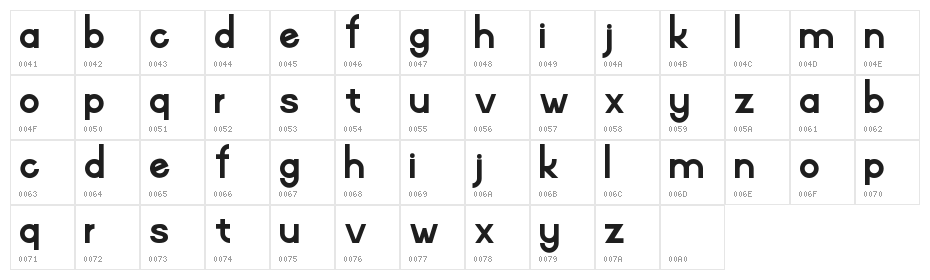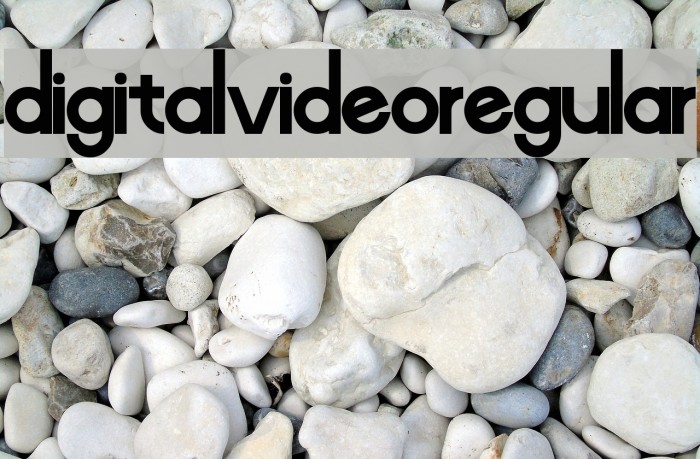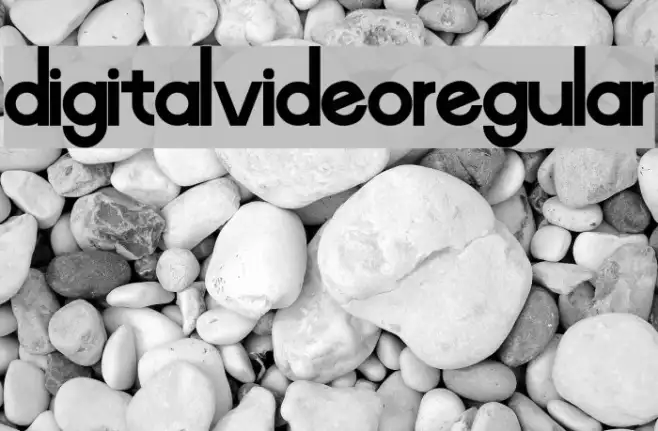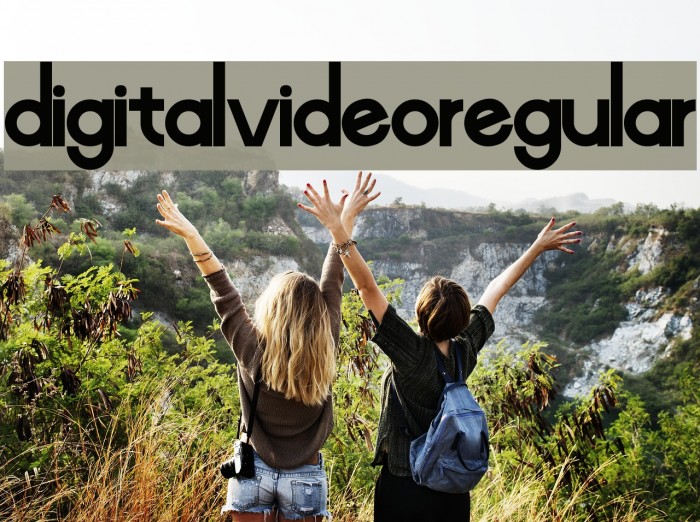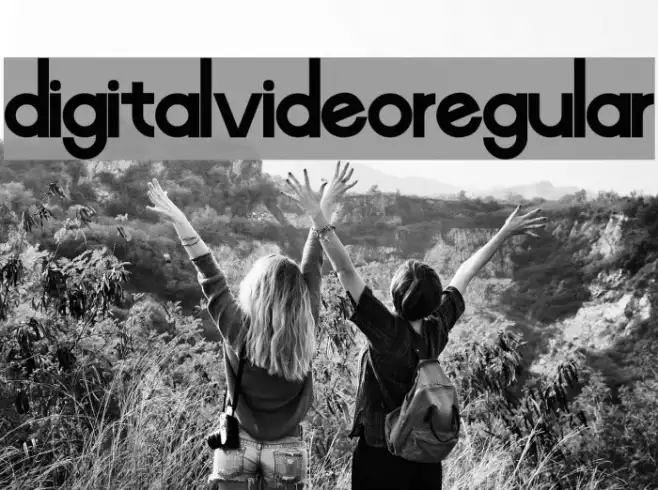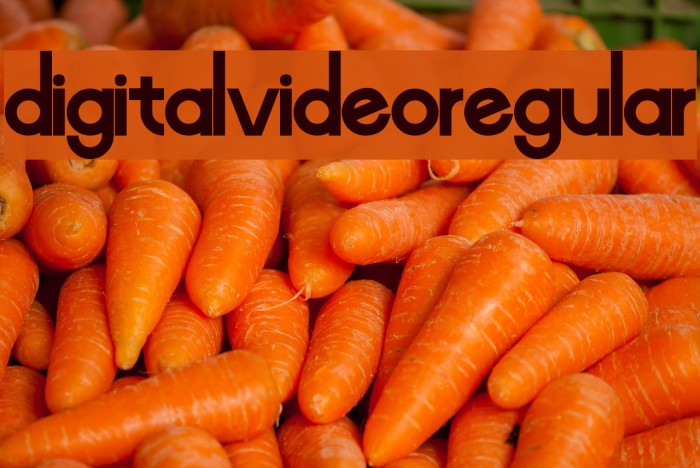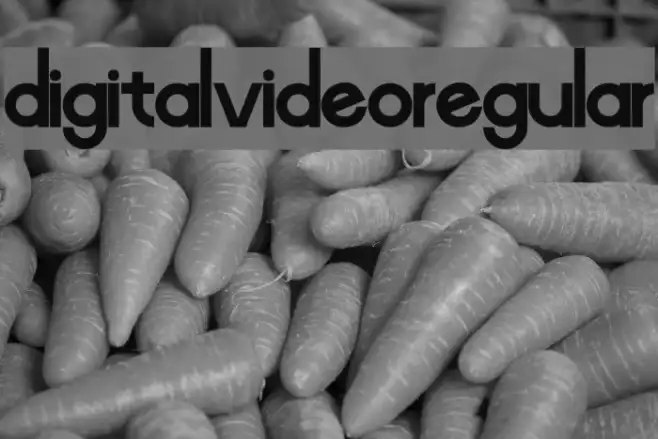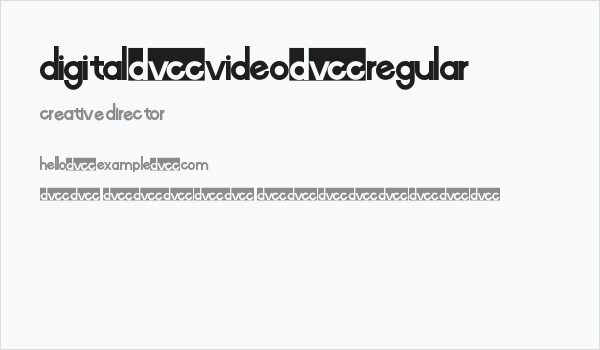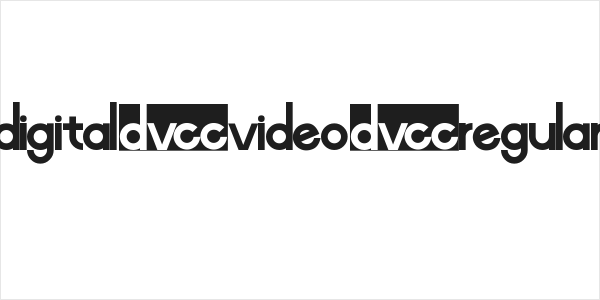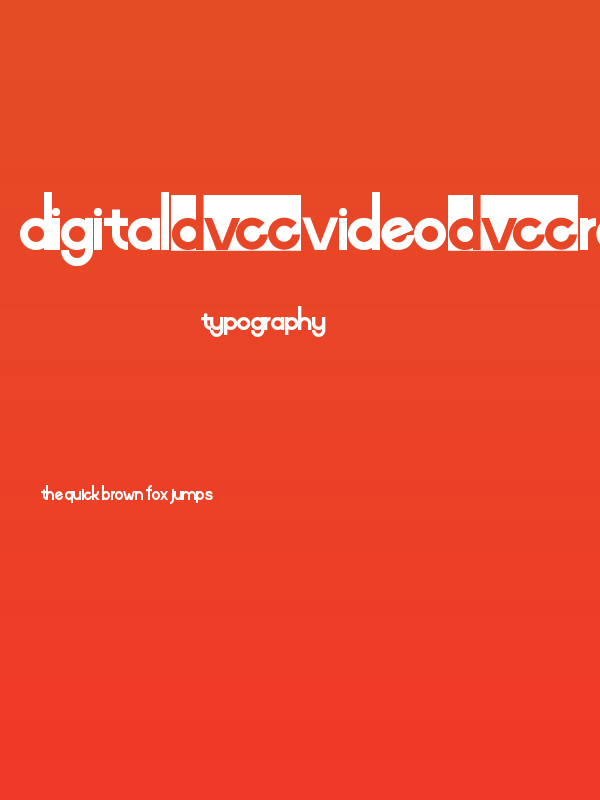
Digital-Video-Regular Font
Digital-Video-Regular Description
This font features a bold, geometric sans-serif style with a modern aesthetic. The characters are constructed with clean lines and uniform stroke widths, creating a cohesive and balanced appearance. The rounded edges of the letters add a touch of softness to the otherwise strong and assertive design. This font is highly legible, making it suitable for various applications. Its contemporary look is ideal for digital media, branding, and advertising, where clarity and impact are essential. The consistent weight and spacing ensure readability across different sizes and formats.
| Use Case | Headlines, Logos, Digital Media |
| Proposed Projects | Ideal for digital media, branding, advertising, and modern web design. |